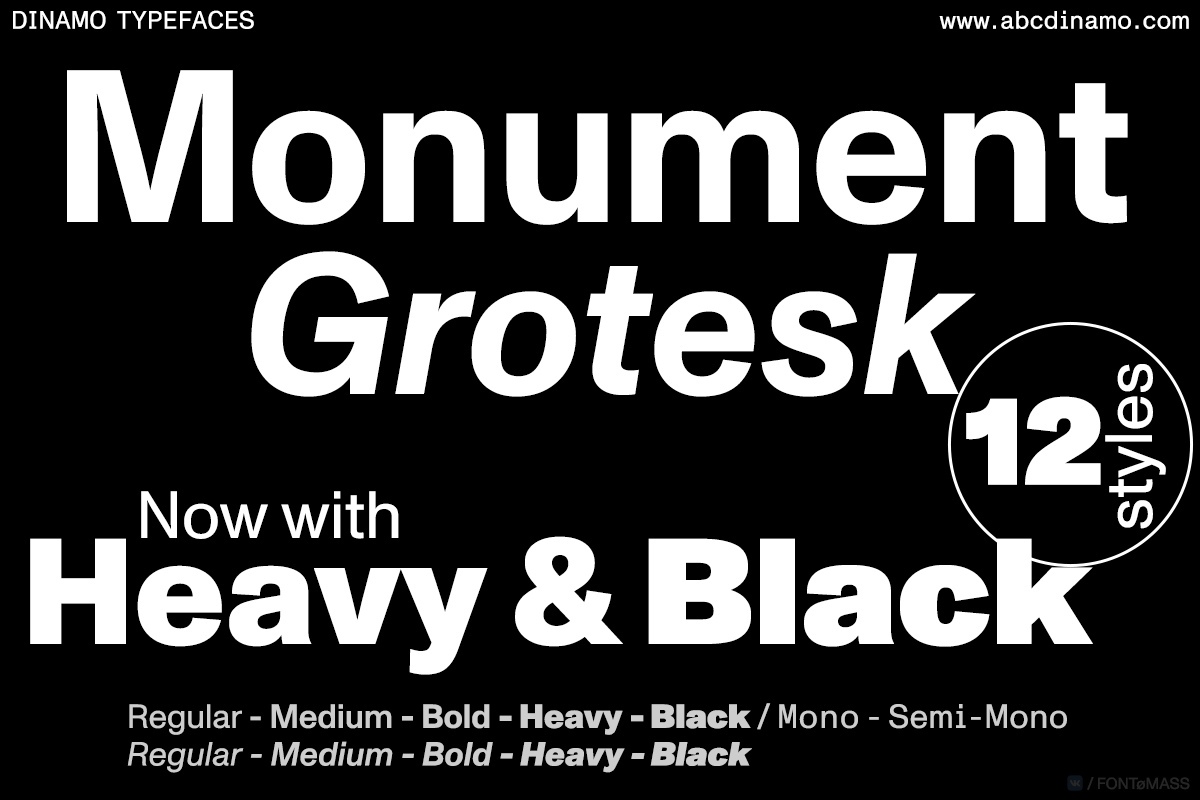
Monument Grotesk Font
Monument Grotesk Font is perfect for modern architectural presentations, minimalist brand identities, contemporary art gallery signage, high-end fashion campaigns, tech company branding, sleek product packaging, avant-garde poster designs, luxury real estate marketing, and cutting-edge web interfaces.
What makes Monument Grotesk Font exciting is its bold geometric structure combined with distinctive sharp angles that create powerful visual impact and unmistakable contemporary presence. The font's architectural-inspired letterforms and precise construction deliver uncompromising modernist aesthetics while maintaining exceptional functionality, making it the ultimate choice for brands seeking to project innovation, strength, and forward-thinking design philosophy.
Monument Grotesk Font family includes multiple weights from Light to Black, along with condensed and extended variations, providing comprehensive design systems with matching oblique styles for complete typographic flexibility and dynamic visual hierarchies.
The precision-engineered letterforms ensure optimal performance across all scales, from massive environmental graphics to detailed interface elements. Advanced OpenType features include stylistic alternates that enhance customization possibilities.
Monument Grotesk Font sets new benchmarks in the geometric sans-serif category through its unique combination of structural boldness and refined execution. This exceptional typeface doesn't just communicate messages—it creates visual landmarks that define contemporary design excellence and establish lasting brand recognition.